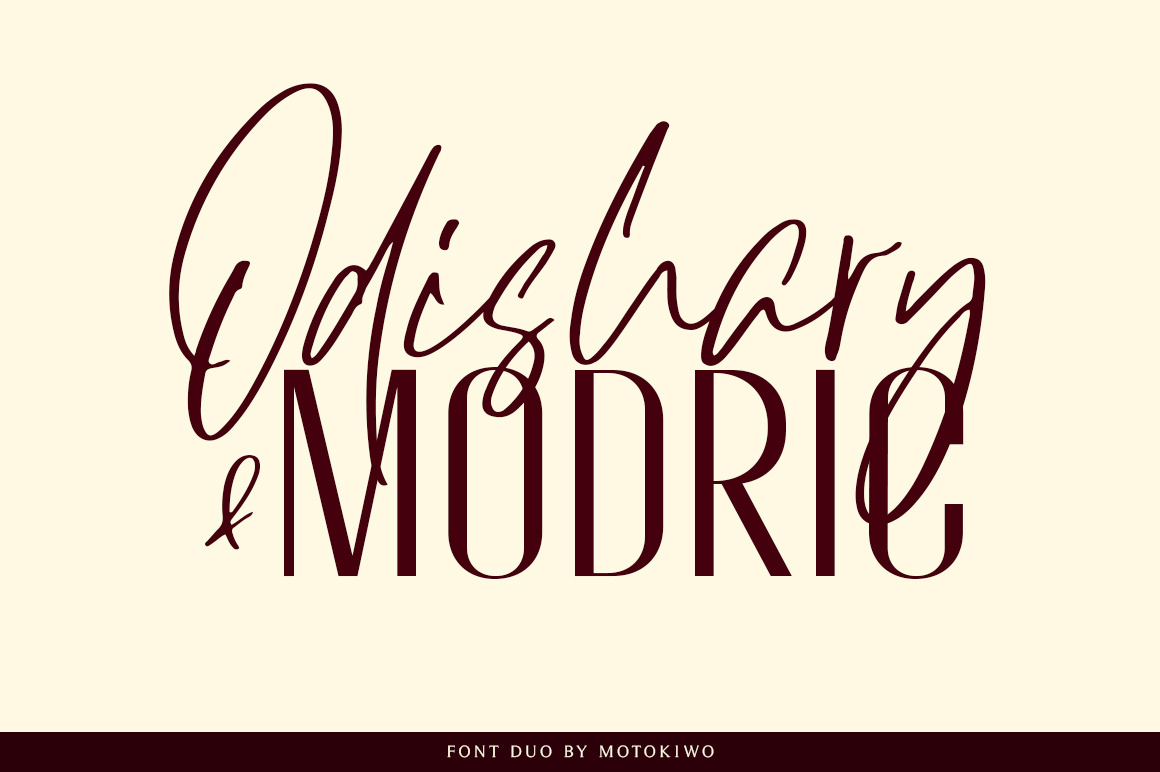
Upgrade your class with Odishary and Modric! An elegant paired fonts between Handwritten Font and stylish condensed Sans Serif. Always believe in Leonardo da Vinci:
"Simplicity is the ultimate form of sophistication"
And believe me, Odishary and Modric have that form! This is perfect combination that will give your project a luxurious feels.
- Odishary - A casual and classy handwritten script font with ligature, also includes multilingual characters.
- Modric - All caps stylish condensed sans serif that very suitable for fashion and beauty projects. Multilingual characters included.